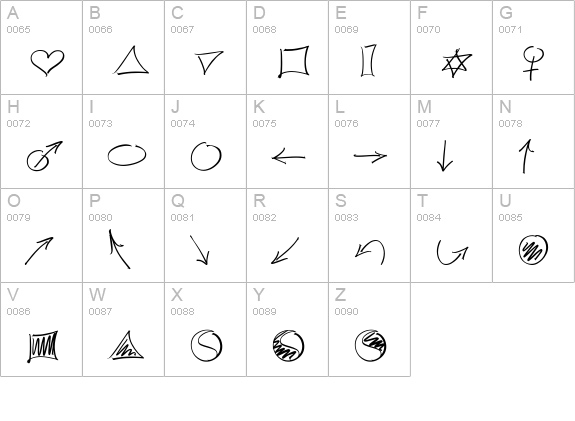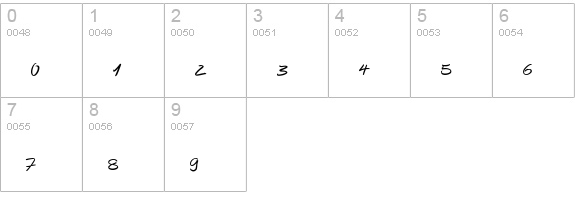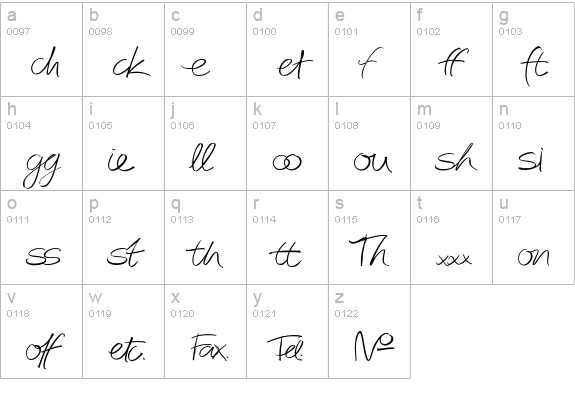
AutographScriptEF-LightExtra font is a beautifully crafted typeface that exudes elegance and sophistication. With its delicate and flowing script style, this font is perfect for adding a touch of refinement to any project. The light extra weight of this font gives it a delicate and ethereal quality, making it ideal for use in invitations, greeting cards, and other designs where a touch of elegance is desired. What sets AutographScriptEF-LightExtra font apart is that it is available for free download at FontsMarket.com. This means that you can easily access this stunning font and incorporate it into your designs without any cost. Whether you're a professional designer or a hobbyist looking to add a special touch to your projects, AutographScriptEF-LightExtra font is a fantastic choice. Download it today and elevate your designs with its graceful charm.